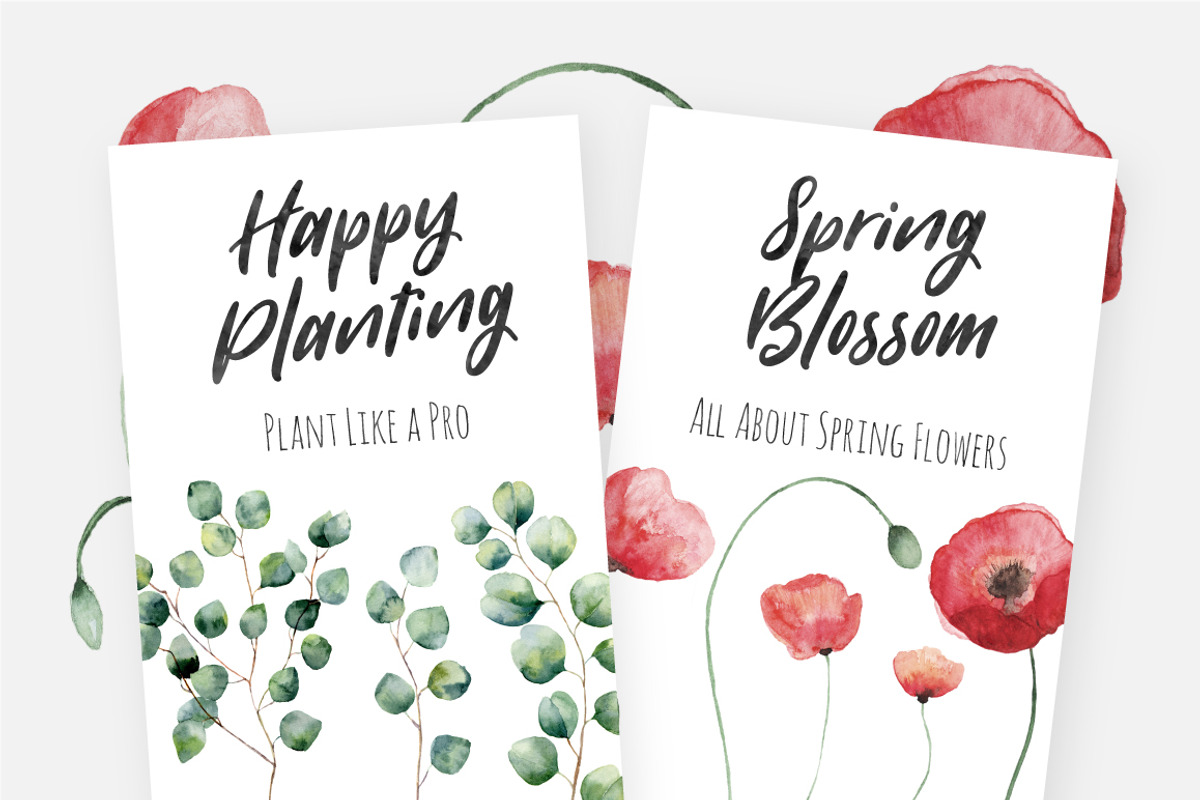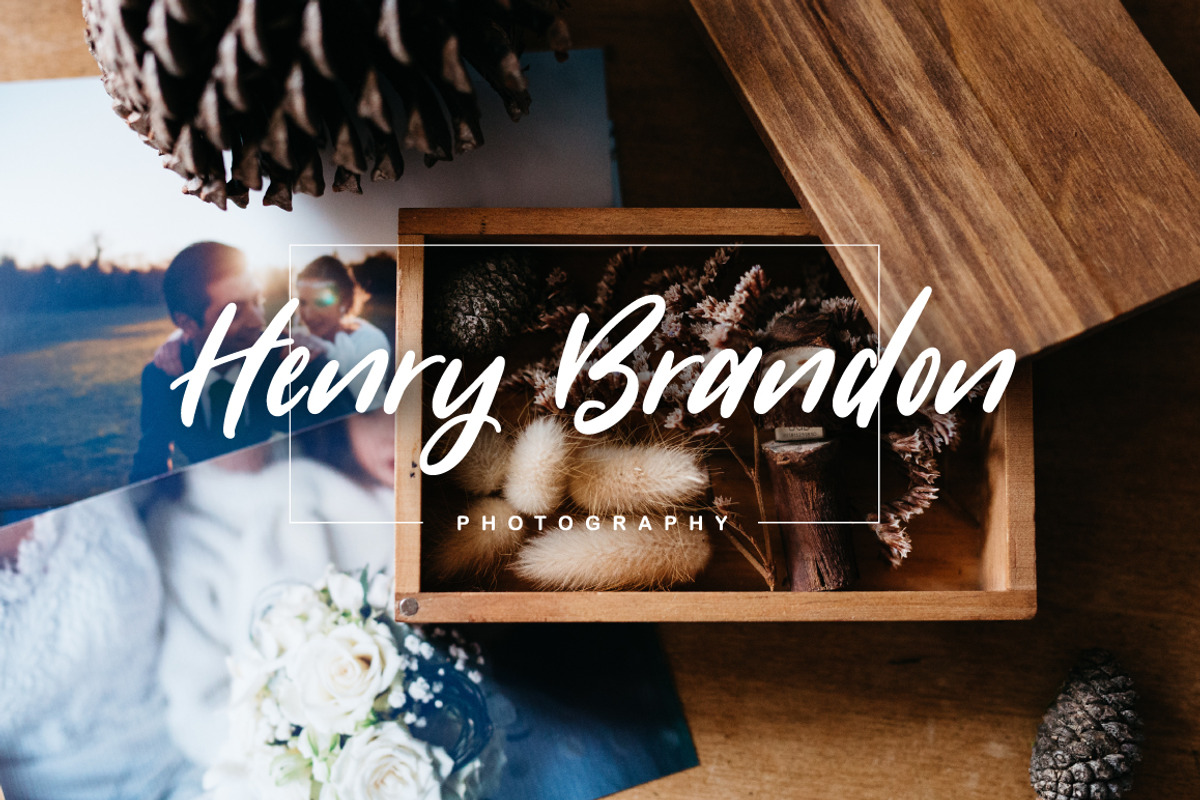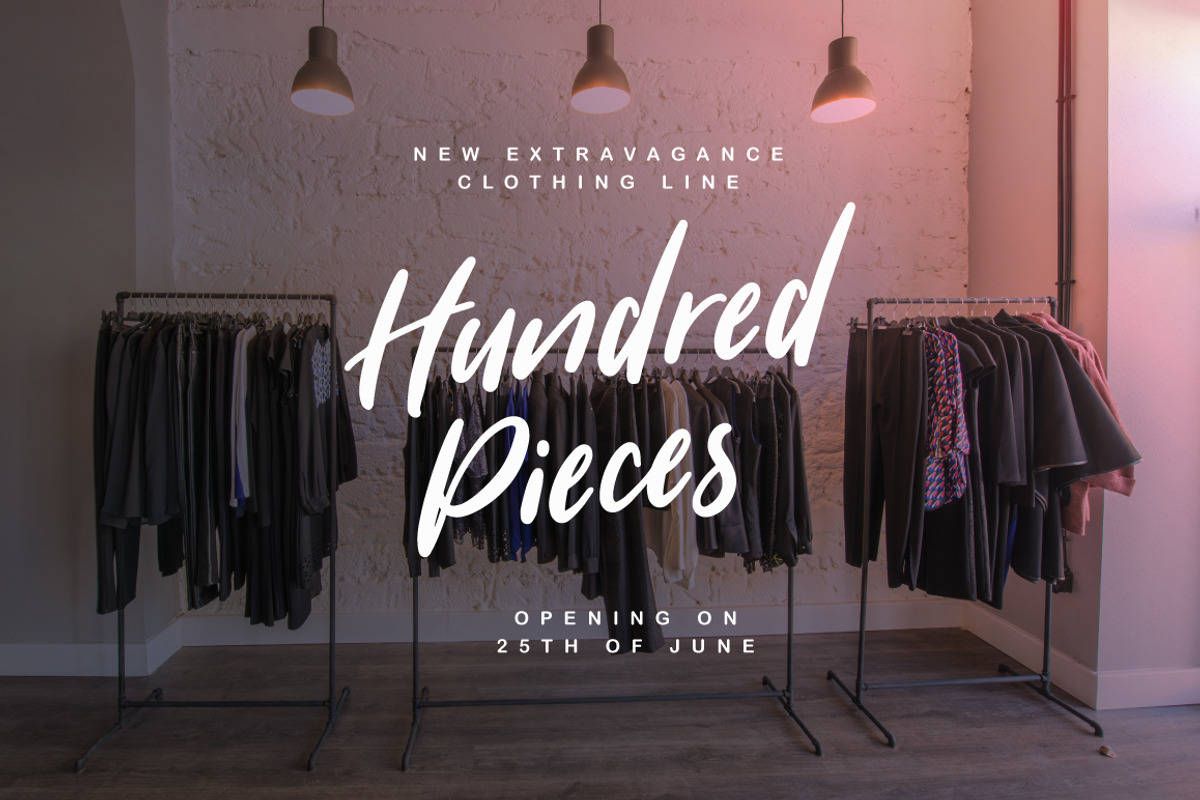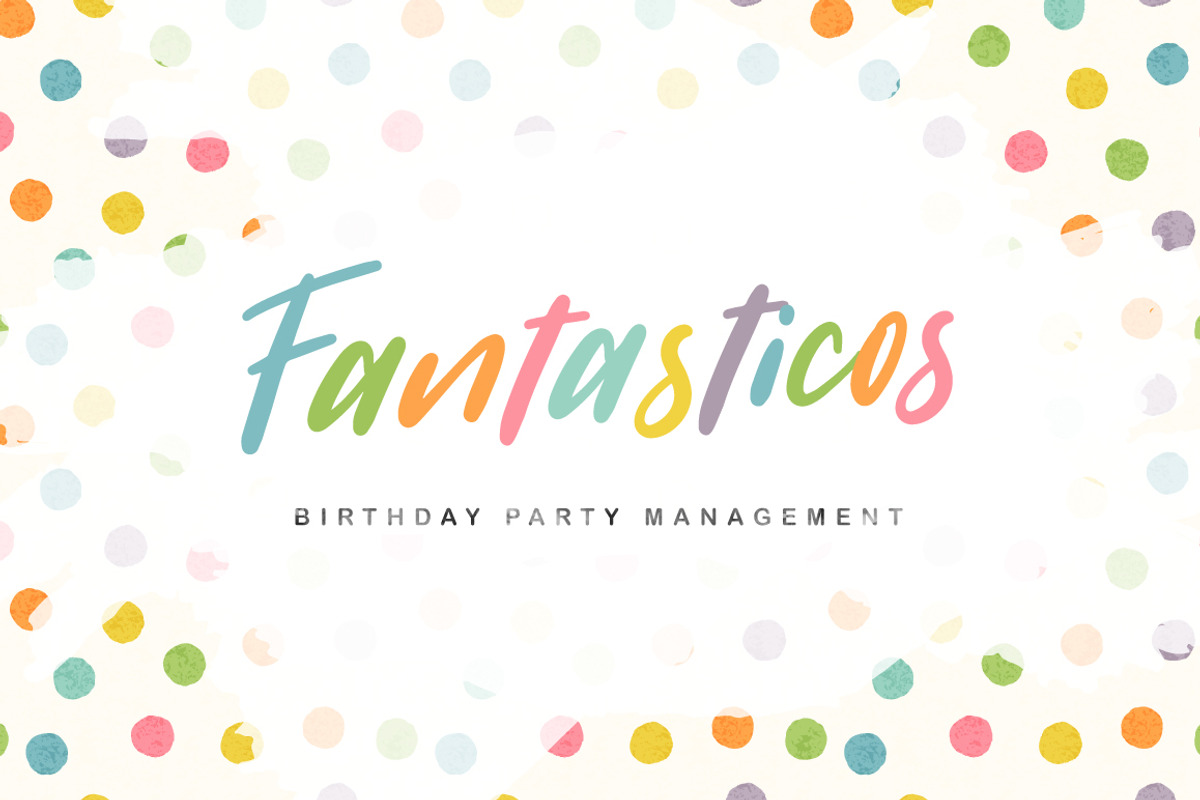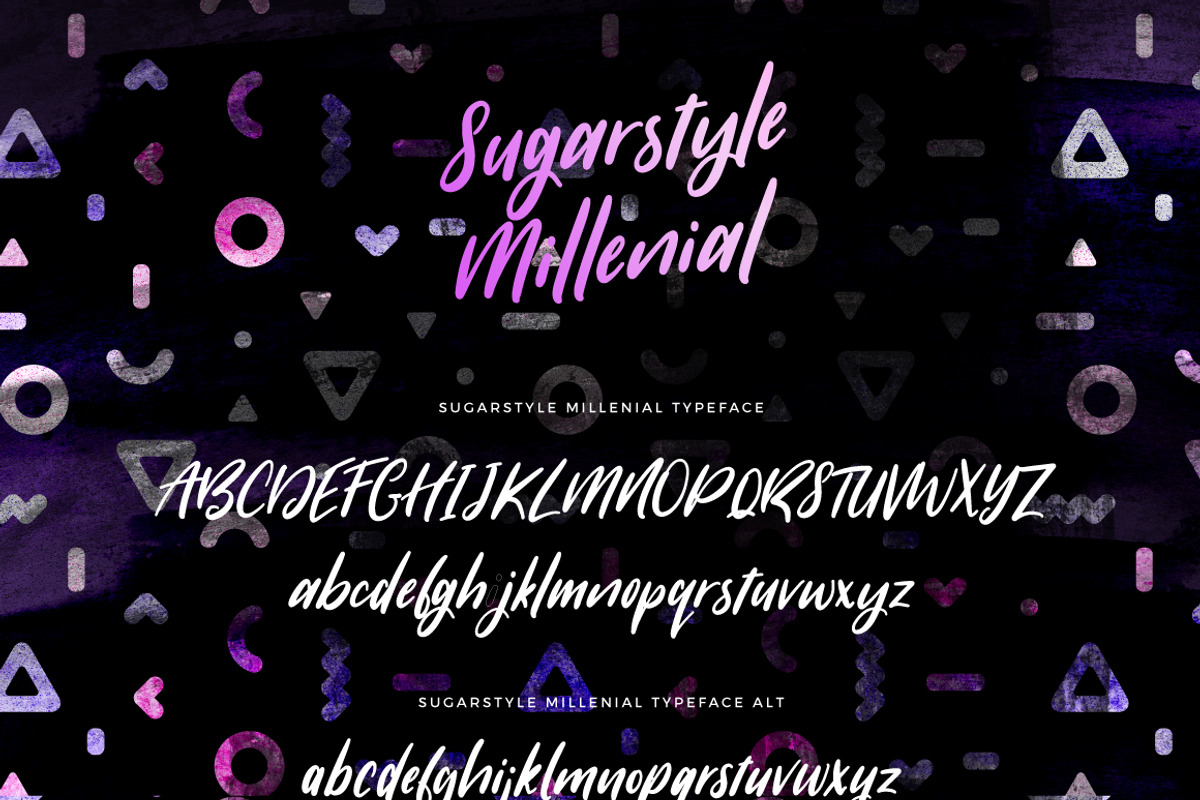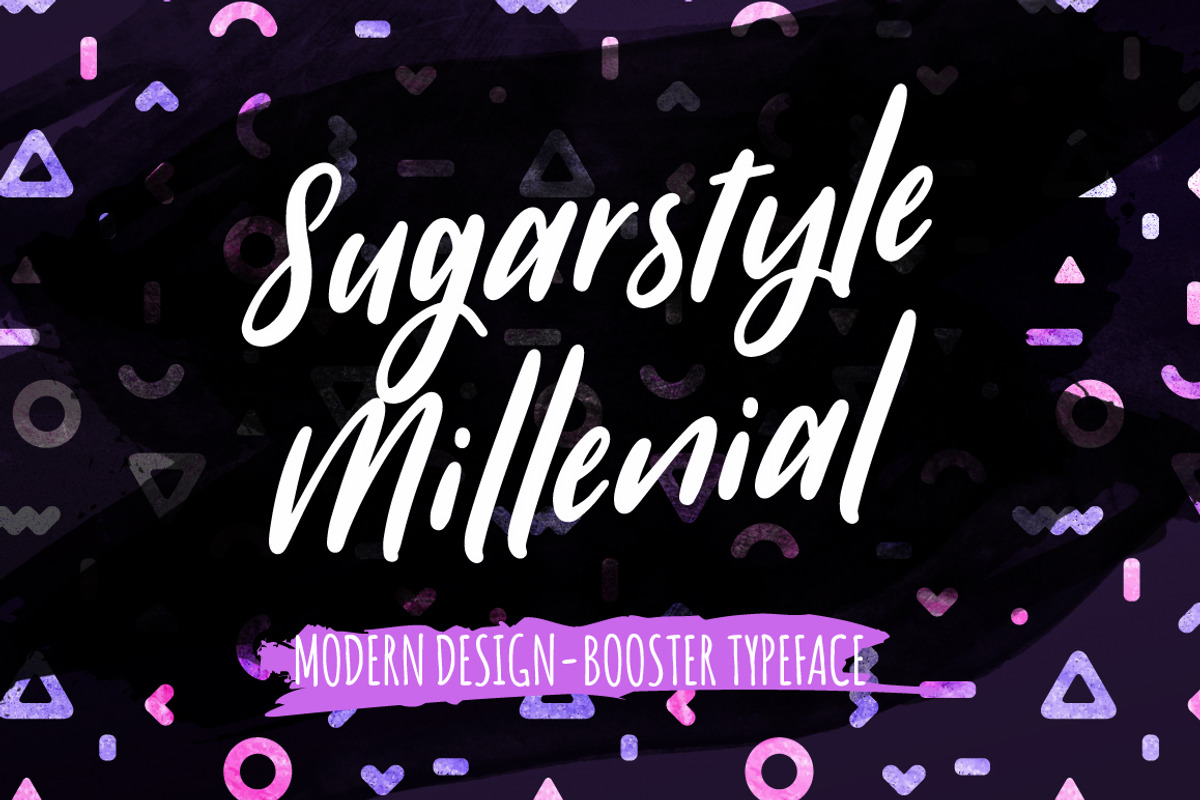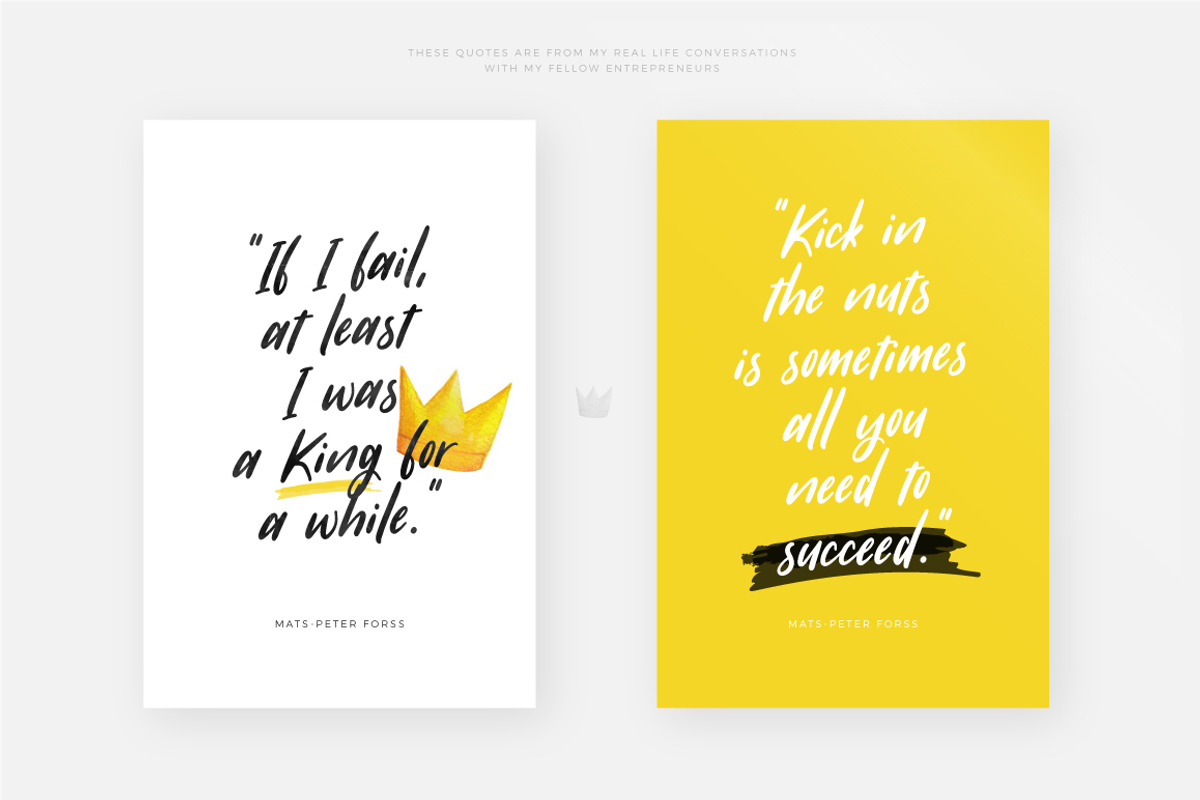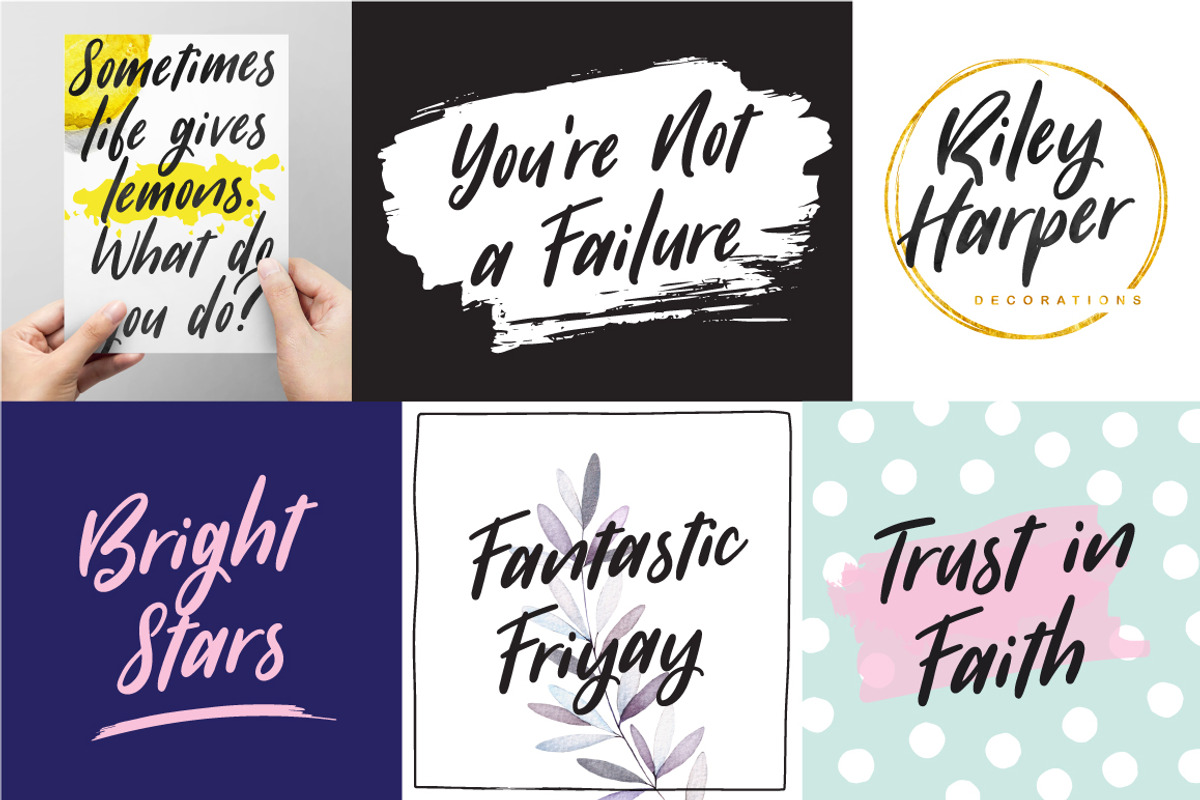
Sugarstyle Millenial Typeface
Sugarstyle Millenial is a hand made crafted with love. It's authentically hand lettered in my beautiful studio! The pack includes alternates for lowercase characters to make it look like freshly hand written. Designed to work perfectly in multiple designs like wedding invitations, website logos, Instagram posts and many many more.
SUGARSTYLE MILLENIAL TYPEFACE - Upper and lowercase characters, numerals, punctuations and a wide language support. Including both, OTF and TTF filetypes.
SUGARSTYLE MILLENIAL TYPEFACE ALT - Alternates for lowercase characters. Including both, OTF and TTF filetypes.